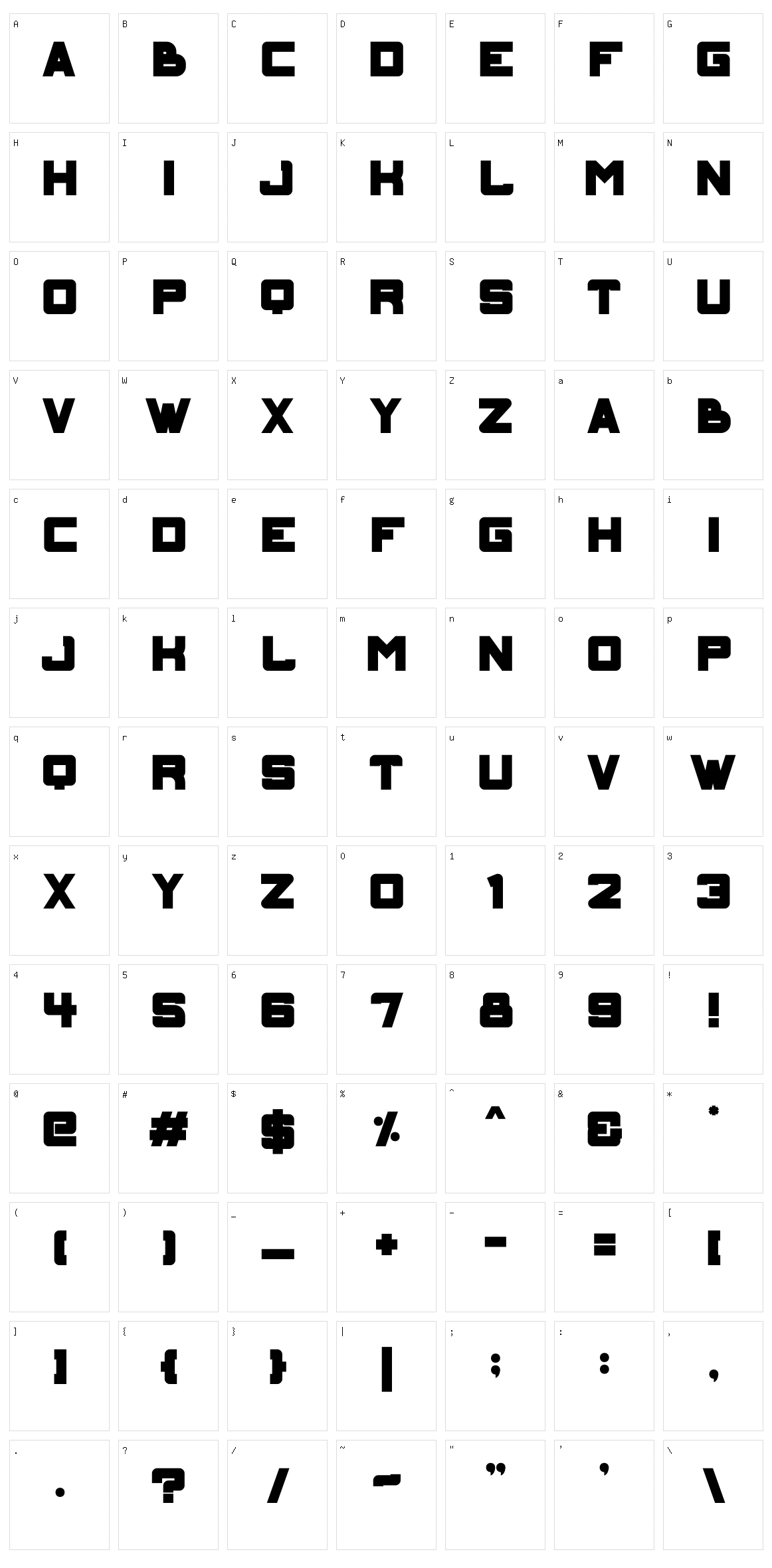
Gordion
Designed by: Letterayu
Description: The free font Gordion is carefully designed by Letterayu, showcasing a thoughtful balance of creativity and usability and belongs to the Techno font family. When you download the ZIP file, it contains only 1322.97 KB of font files, making it lightweight and quick to download. Please review the license details below to understand permitted usage and distribution rights. If license information is not available, we recommend using this font for personal projects only or contacting the author directly for commercial usage permissions.